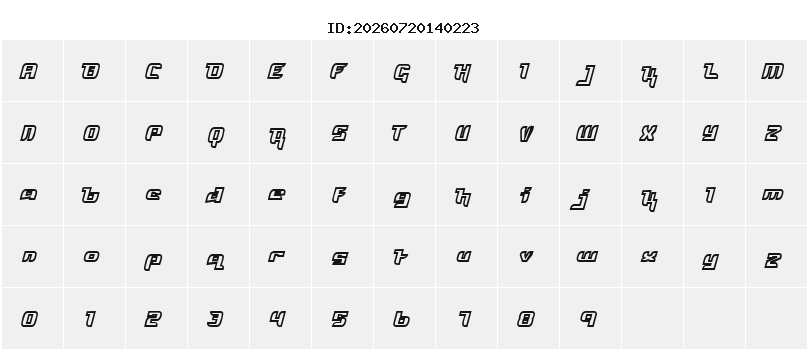
• Font Name: Freya Outline
About Freya Outline.ttf
Freya Outline.ttf is a modern, elegant sans-serif font designed for ultimate readability and visual harmony. Perfect for branding, headlines, web design, and print materials.